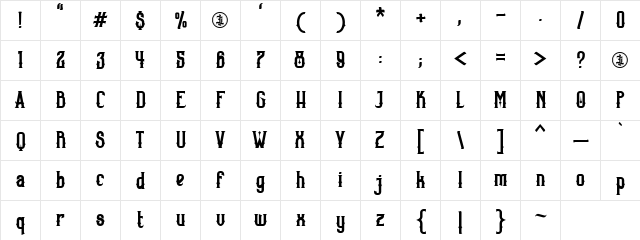
Barstagle Personal Use Only Regular
Design Context for Barstagle Personal Use Only Typeface
Barstagle Personal Use Only is a composed and adaptable typeface that performs quietly and consistently across a wide range of design contexts.
Pro Tip: Use Barstagle Personal Use Only in both headline and body roles to test its range before committing to a single application.